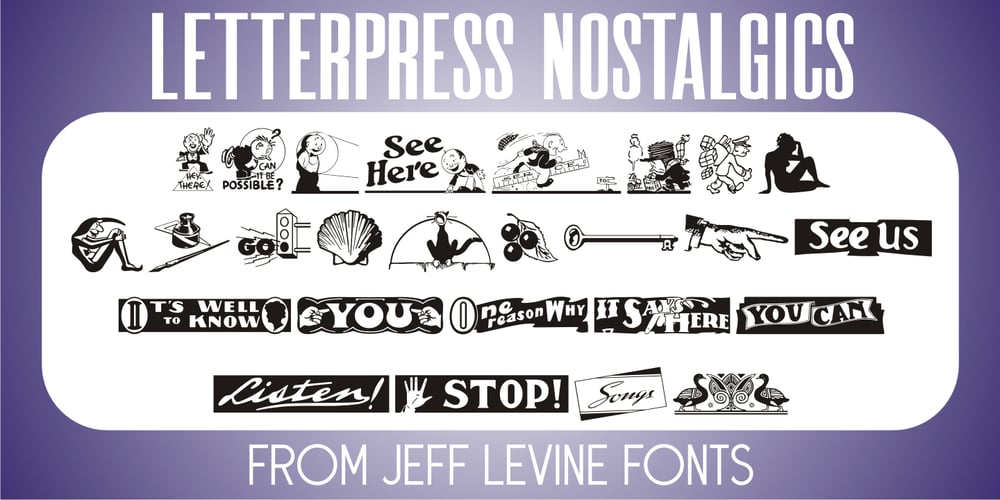
Letterpress Nostalgics JNL
Letterpress Nostalgics JNL font
Letterpress Nostalgics JNL Font Family was designed by Jeff Levine and published by Jeff Levine. Letterpress Nostalgics JNL contains 1 styles and family package options. Classic print shop stock cuts, cartoons, embellishments and other assorted imagery are collected within Letterpress Nostalgics JNL to add “a bit of yesterday” to your print or online projects.